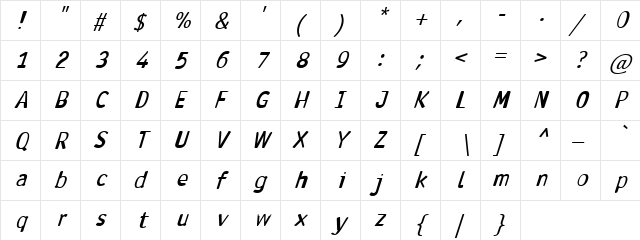
Saatino Tere Regular
Design Context for Saatino Tere Typeface
Saatino Tere takes a measured approach to typography — its balanced proportions and neutral character make it a reliable workhorse for both digital and print work.